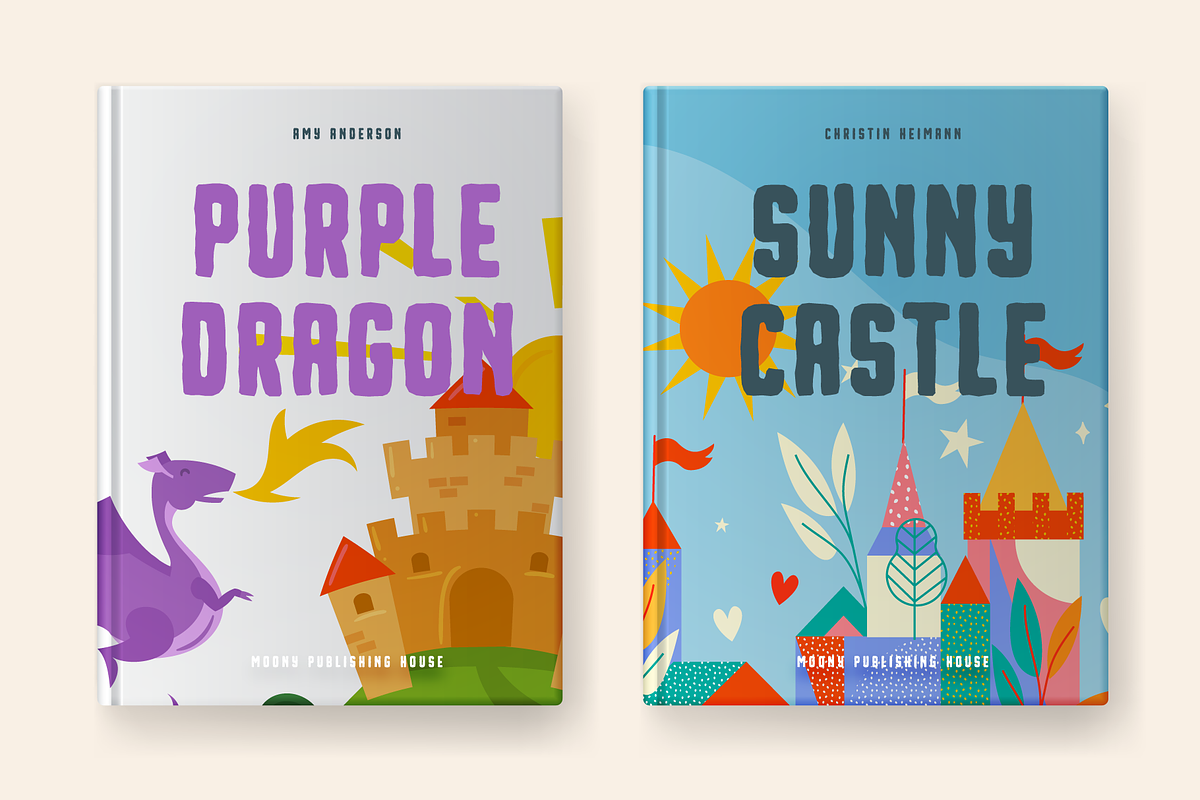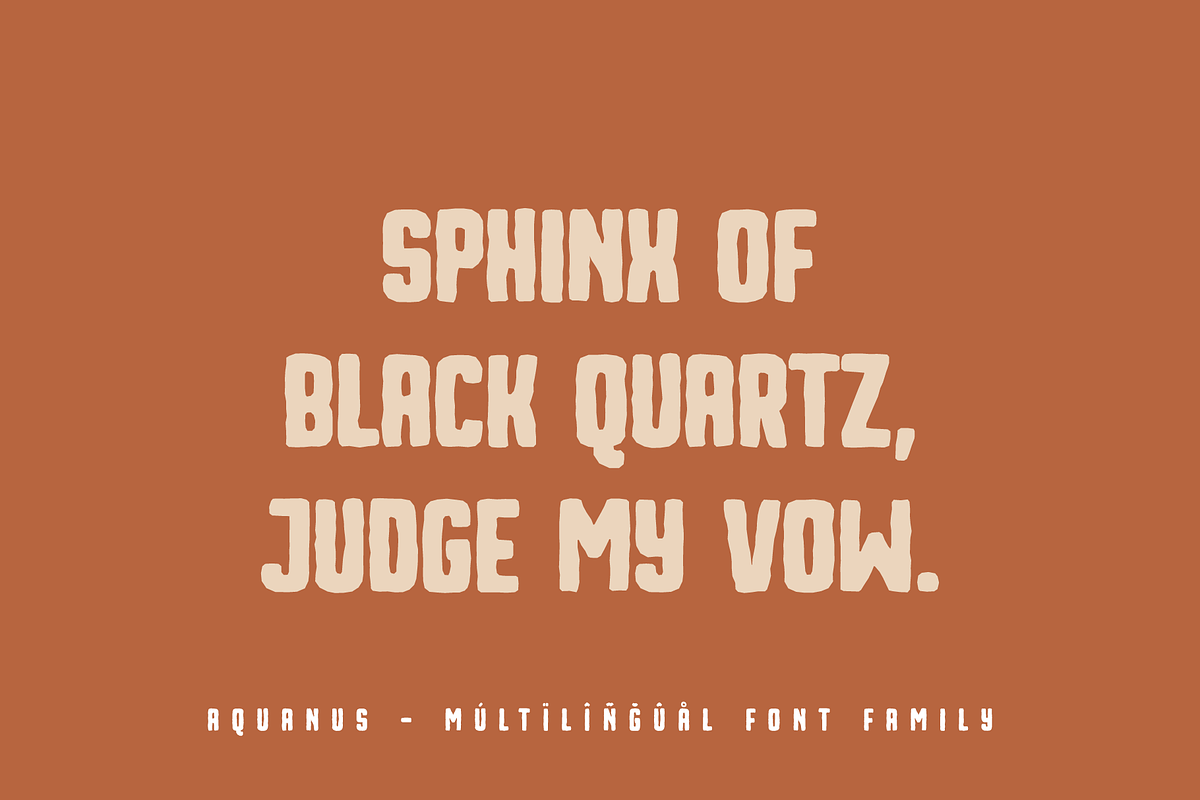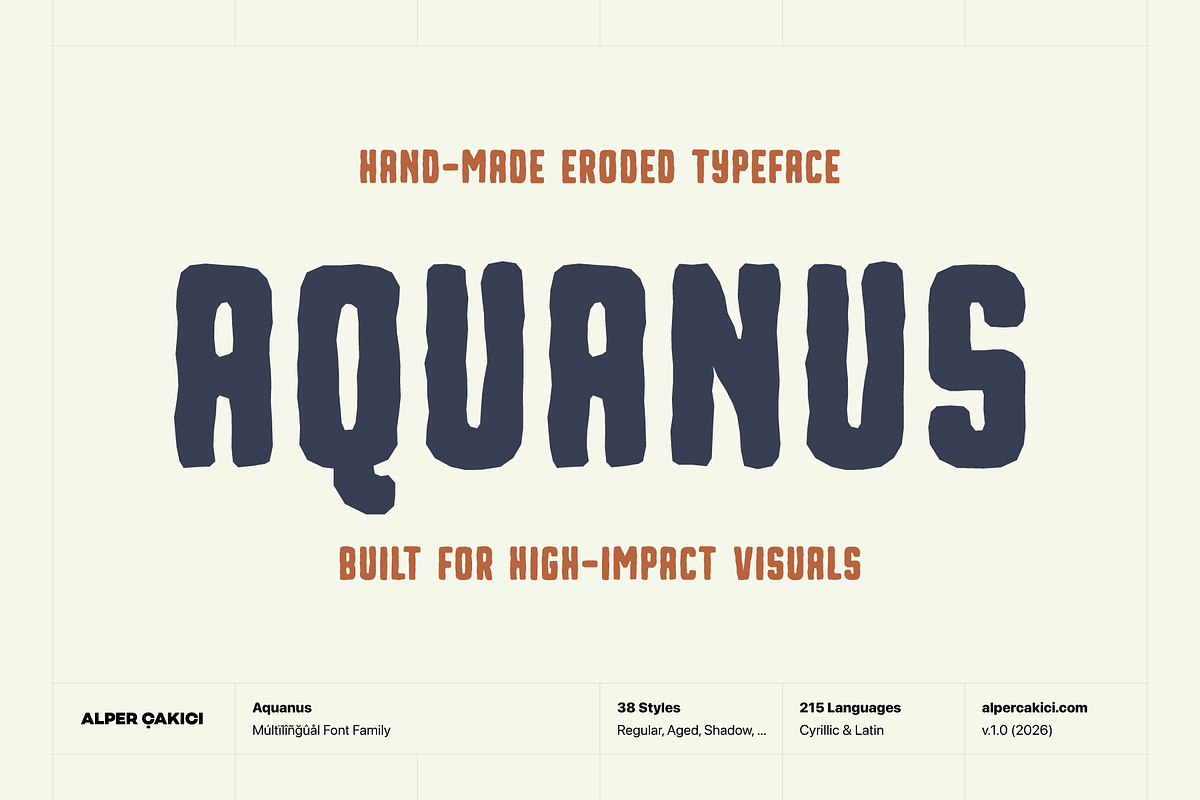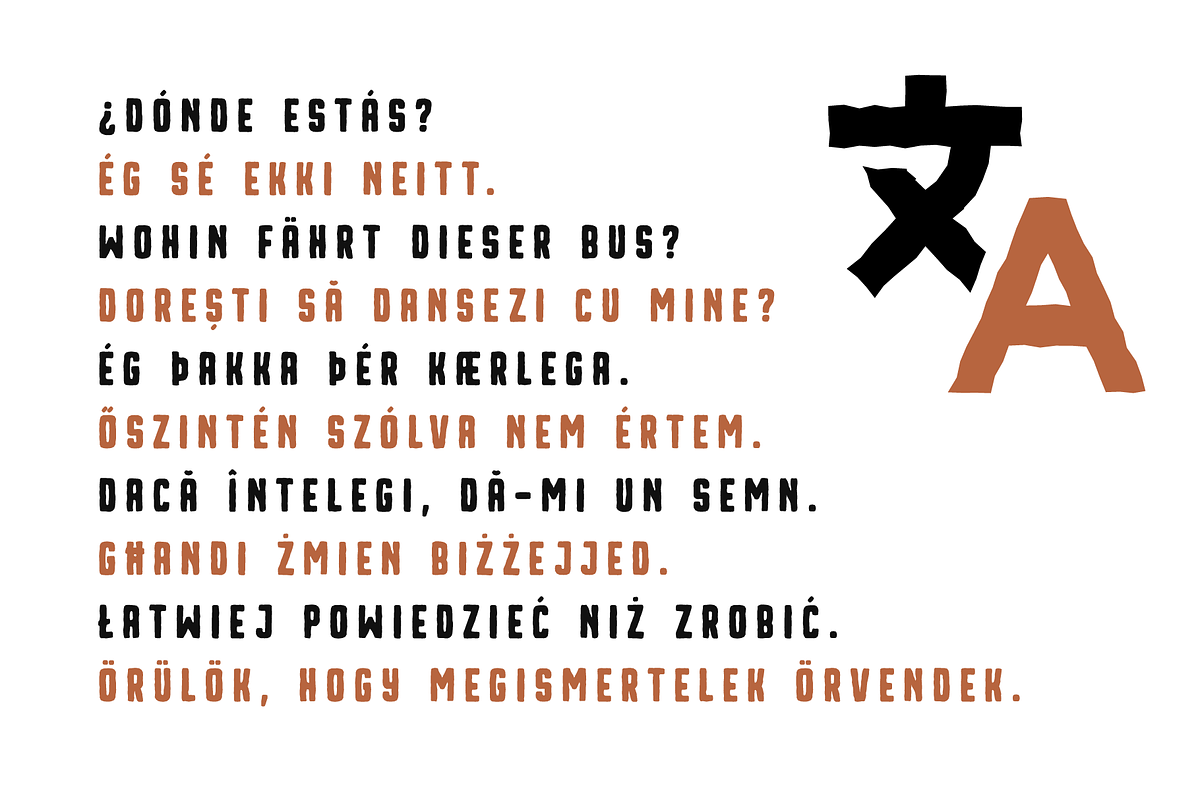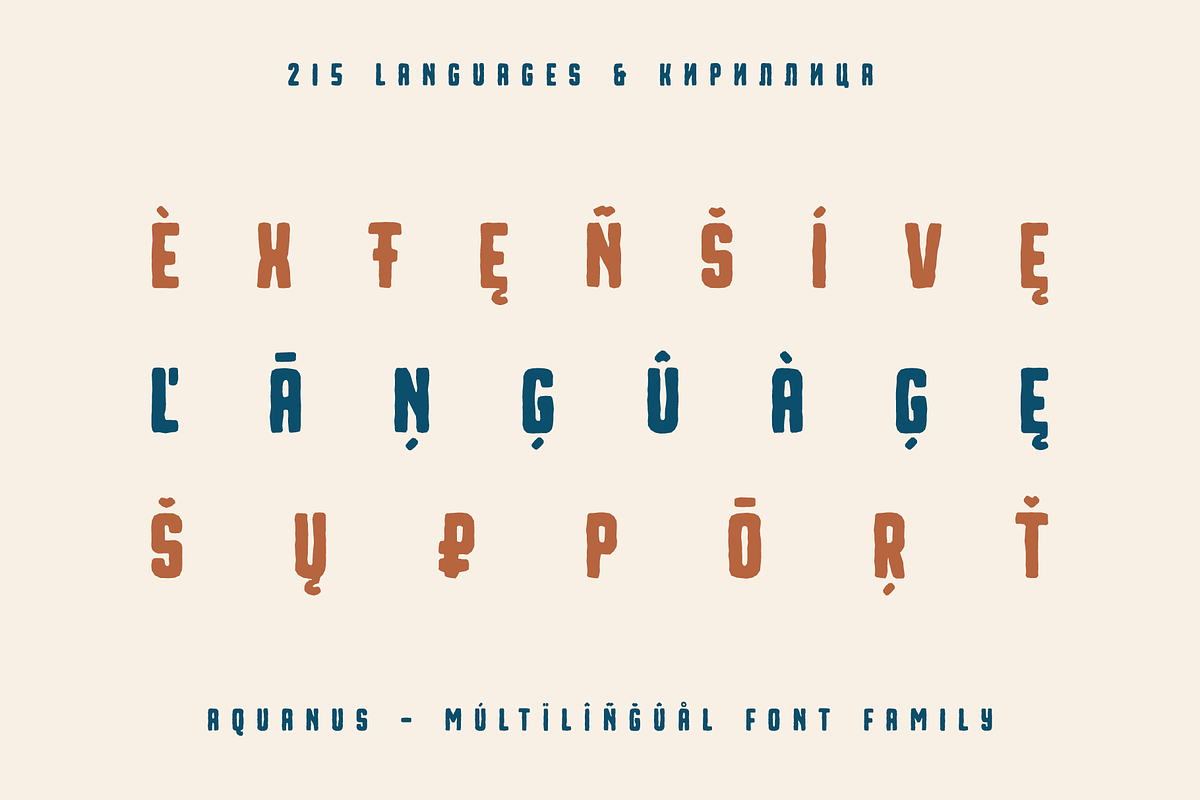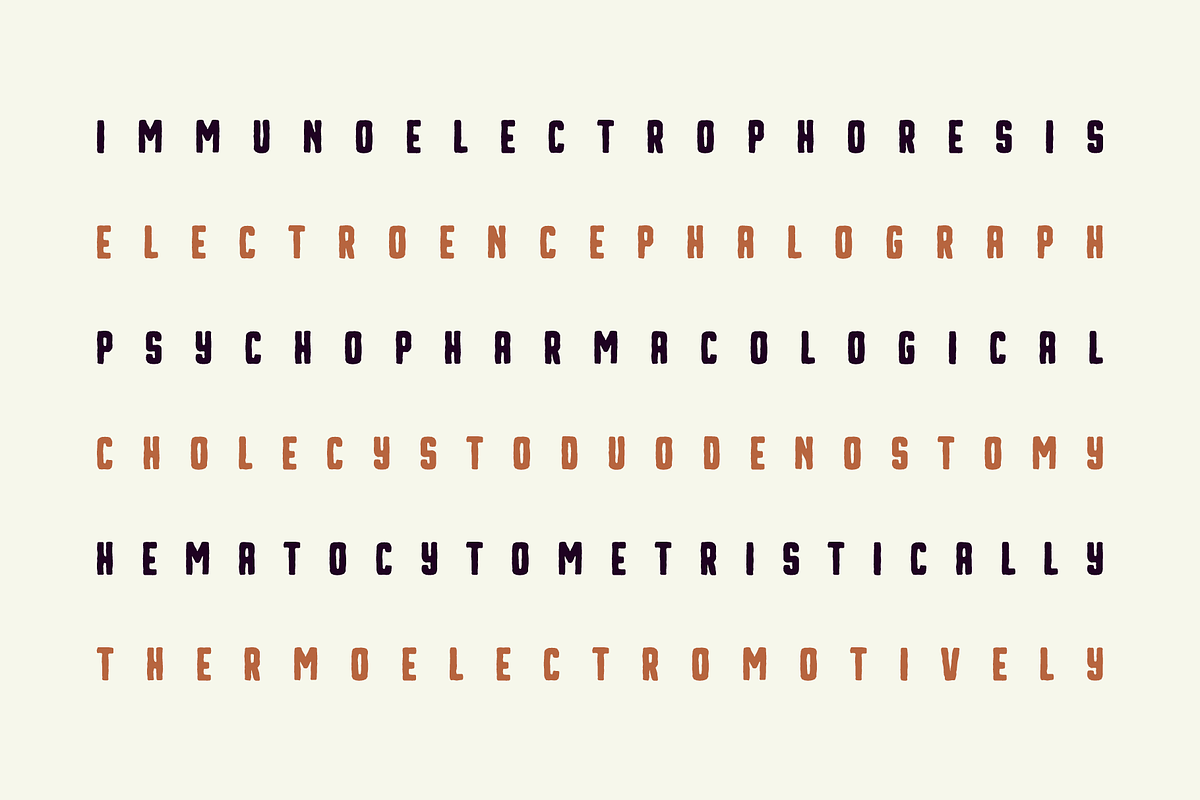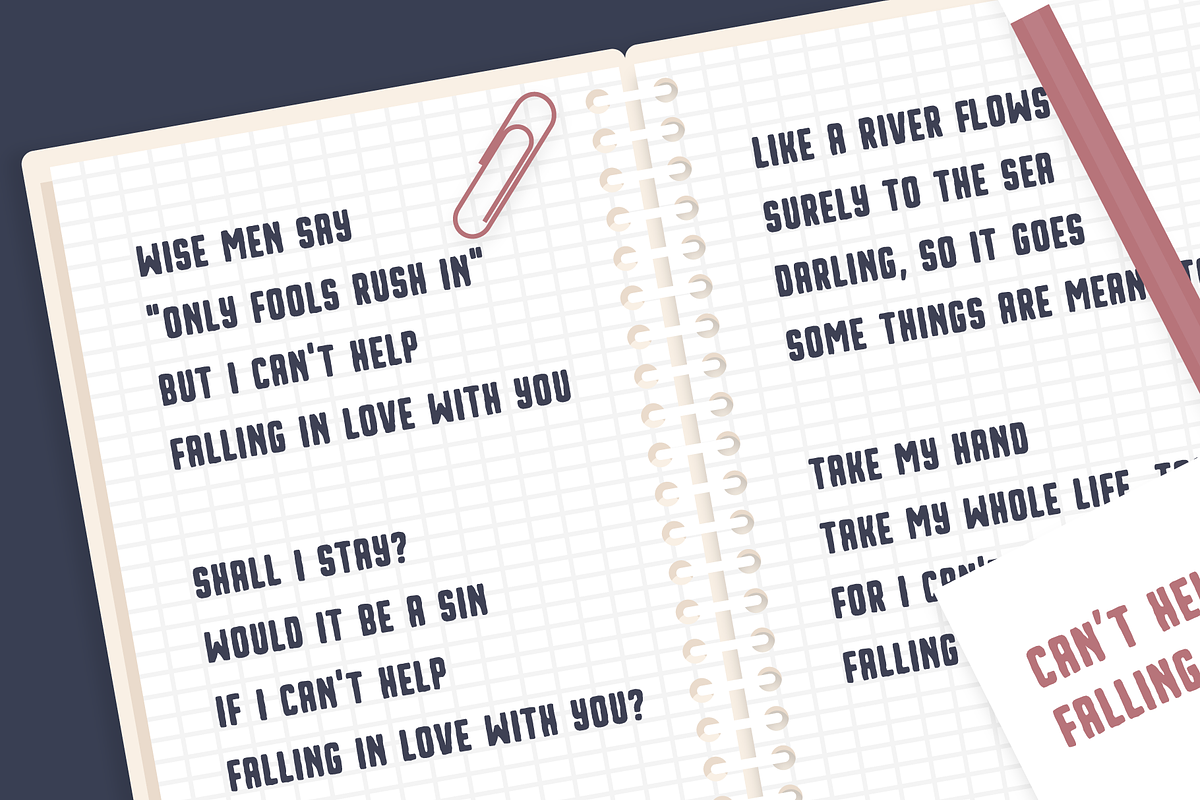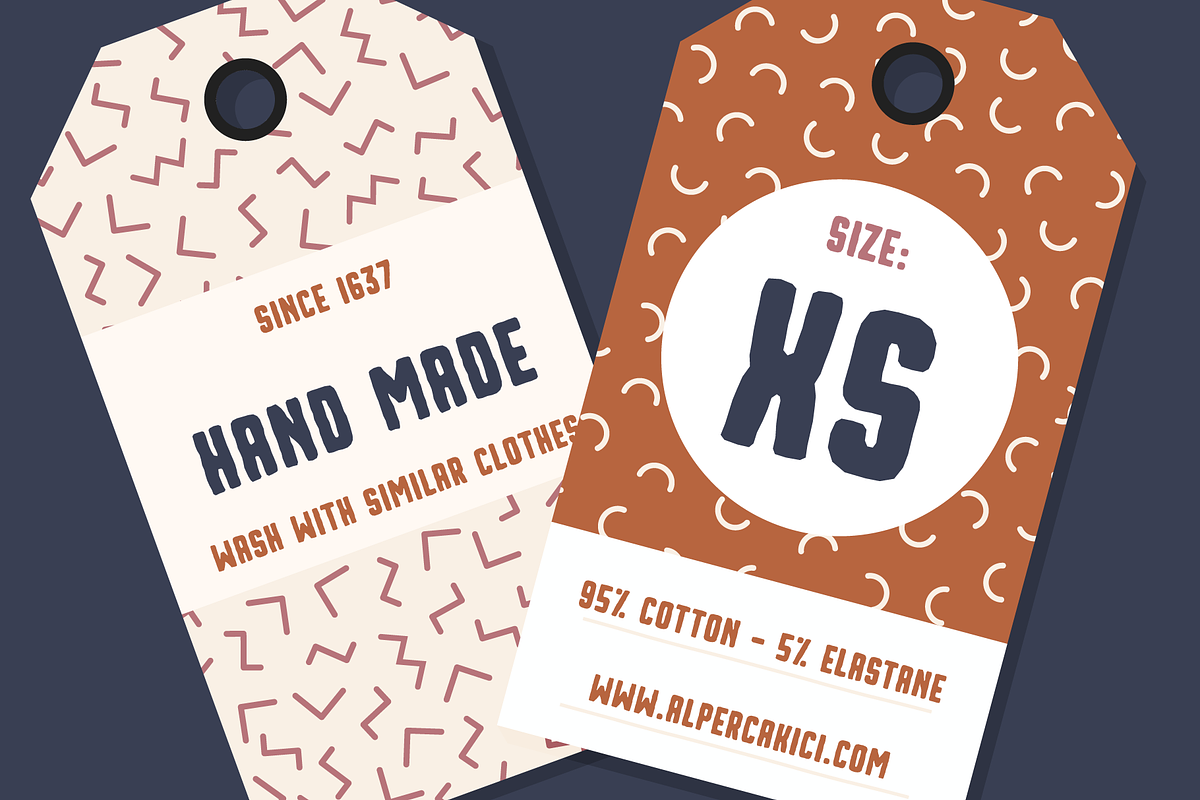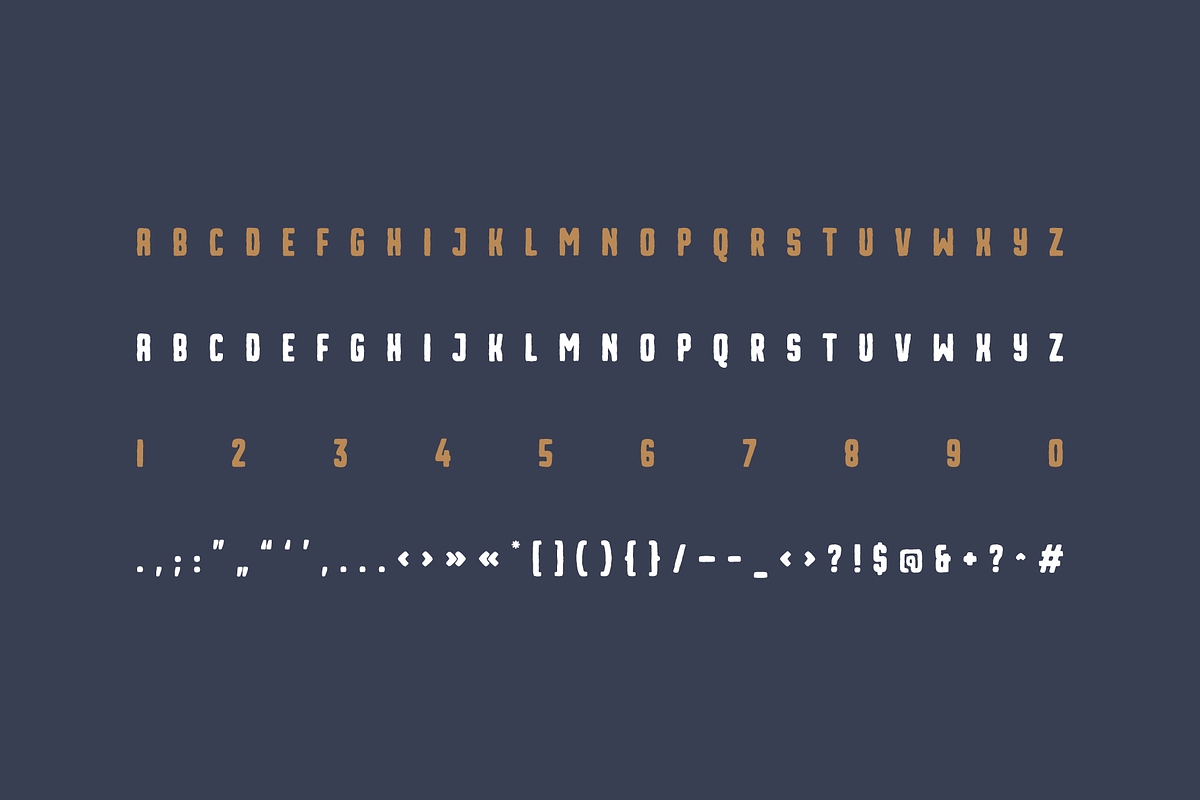
Aquanus - Bold Eroded Font Family
Aquanus is a bold eroded display typeface family that blends rugged industrial character with handcrafted texture. Designed to capture the authentic imperfections of worn surfaces, weathered signage, vintage printing, distressed lettering, and rough-cut graphics, Aquanus delivers powerful typography with unmistakable personality.
Built for designers who want bold display type that feels organic rather than mechanical, Aquanus combines strong geometric construction with carefully crafted distressed details. Every style maintains excellent readability while introducing unique textures that create depth, energy, and visual impact at large sizes.
The family includes 38 styles, offering an extensive range of creative possibilities. Choose between clean Regular and Rounded foundations, then explore expressive variations including Aged, Dry, Edgy, Gritty, Old, Rough, Sketchy, Shadow, and Noise-inspired designs, each accompanied by matching italics where applicable. This flexible system allows designers to create everything from subtle vintage branding to heavily distressed sports, outdoor, and industrial graphics.
Aquanus is especially suited for projects that demand strength, authenticity, and bold visual presence, including:
Logos and brand identities
Outdoor and adventure branding
Vintage packaging
Craft beer and beverage labels
Workwear and apparel graphics
Sports branding
Album covers
Posters and event graphics
Editorial headlines
Restaurant and café branding
Gaming and entertainment
YouTube thumbnails
Signage
Stickers and decals
Automotive branding
Industrial and construction themes
Streetwear collections
Retro-inspired design projects
With 693 glyphs and support for 215 Latin and Cyrillic-based languages, Aquanus provides exceptional multilingual coverage for international branding and publishing. Extensive OpenType features, professional spacing, and carefully balanced proportions ensure reliable performance across both digital and print environments.
Whether you're creating rugged outdoor branding, distressed apparel, vintage-inspired packaging, or bold editorial headlines, Aquanus delivers a versatile collection of rough, eroded display fonts that combine handcrafted character with professional quality.